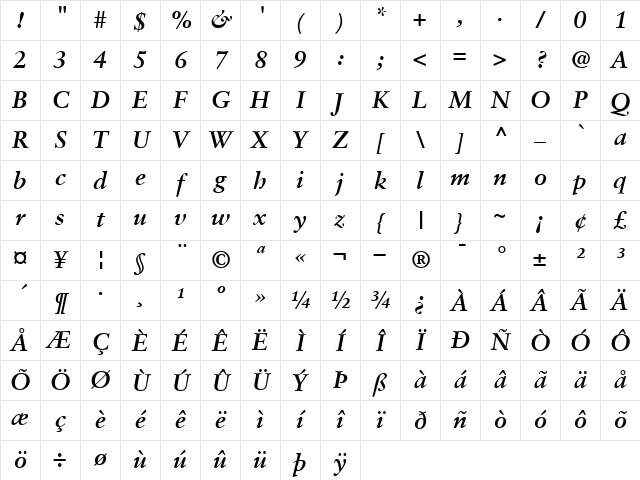
Complete Sabon BoldItalic glyph index. Displaying only characters natively supported by Sabon BoldItalic font.
Sabon is a composed and adaptable typeface that performs quietly and consistently across a wide range of design contexts. The slanted form adds forward momentum and visual energy. Its bold stroke weight gives it real presence on the page.
Pro Tip: Use Sabon for emphasis, pull quotes, and subheadings where its slanted energy can add rhythm to the layout.